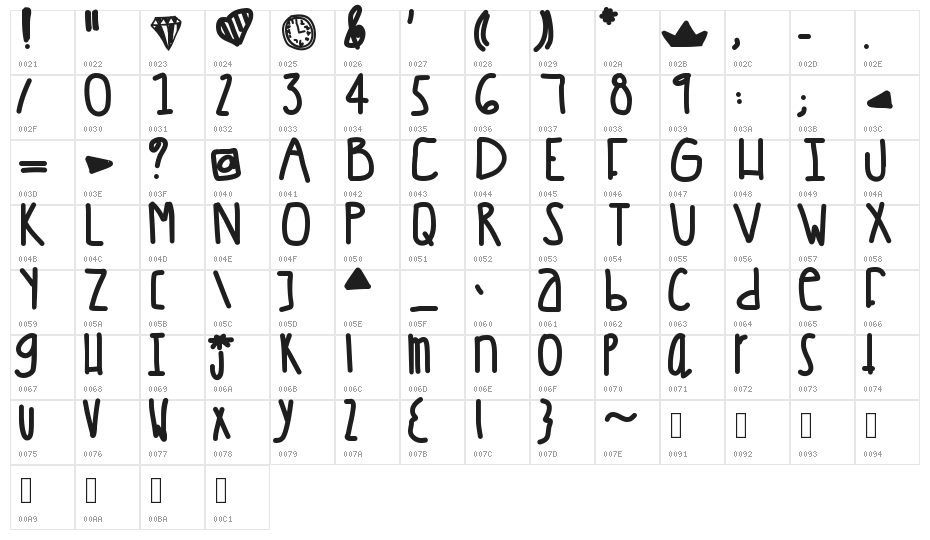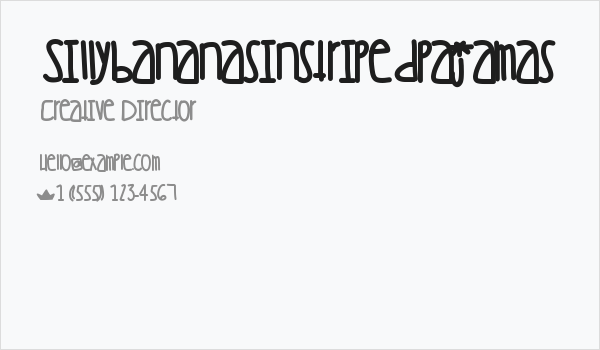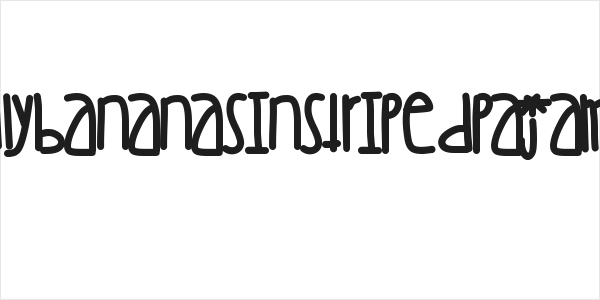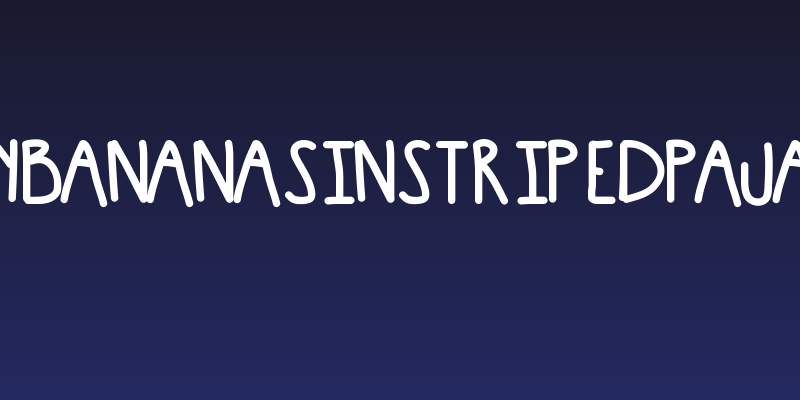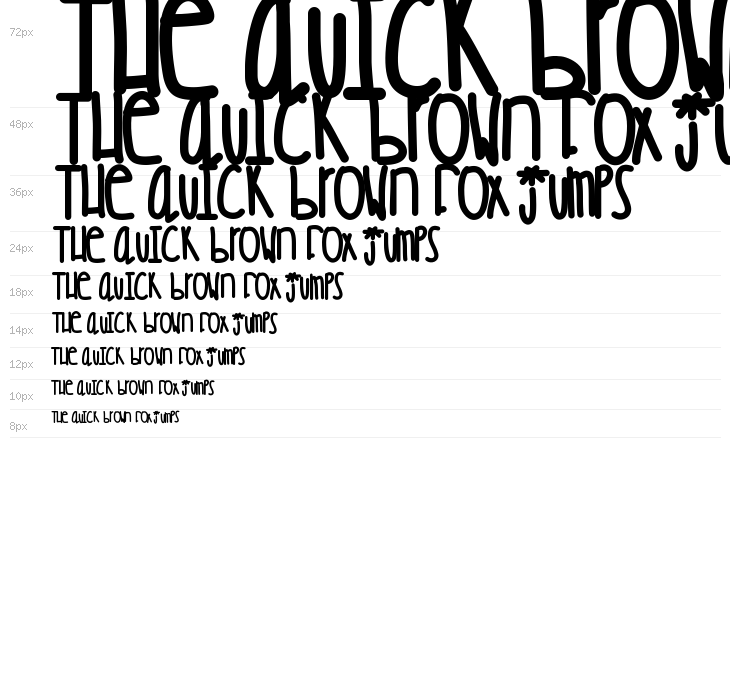
Sillybananasinstripedpajamas Font
Sillybananasinstripedpajamas Description
This playful and whimsical font features a hand-drawn style with irregular, bold strokes that give it a lively and energetic appearance. The uppercase and lowercase letters are uniquely crafted with a casual, informal feel, while the numbers and special characters maintain the same quirky aesthetic. The font's uneven lines and varying thicknesses add to its charm, making it perfect for projects that require a fun and approachable look. Its distinctive style is reminiscent of doodles or children's handwriting, which can evoke a sense of nostalgia and creativity.